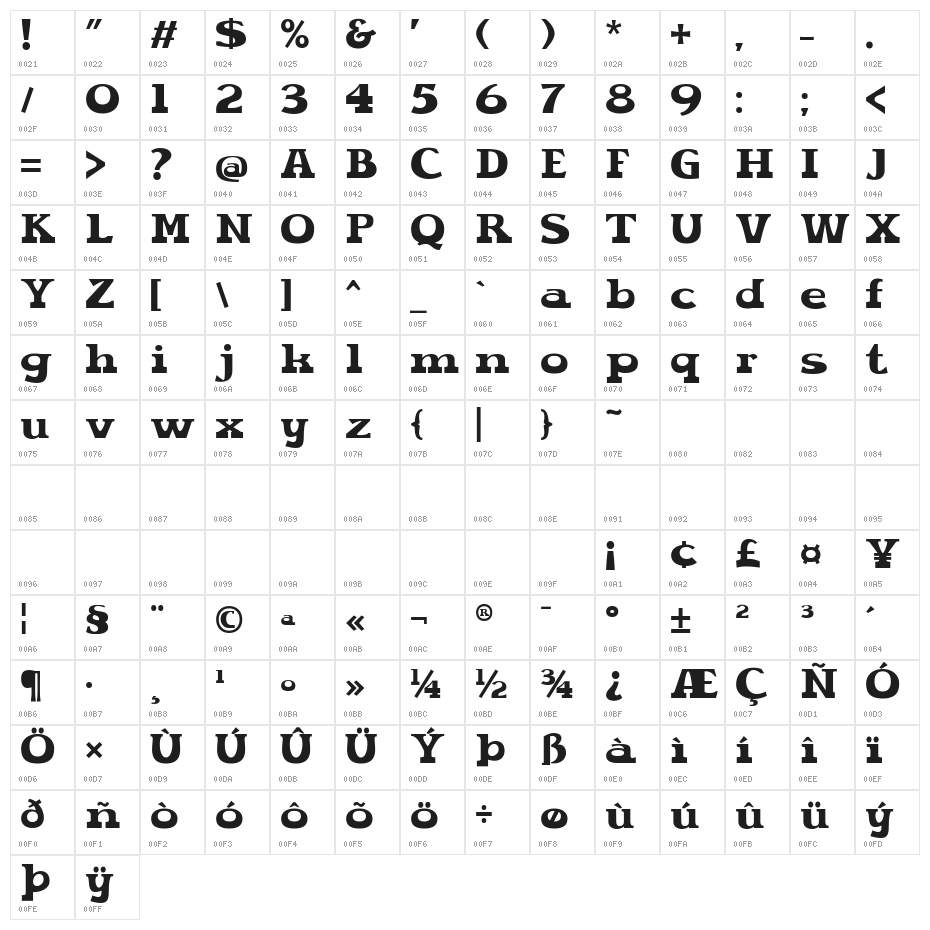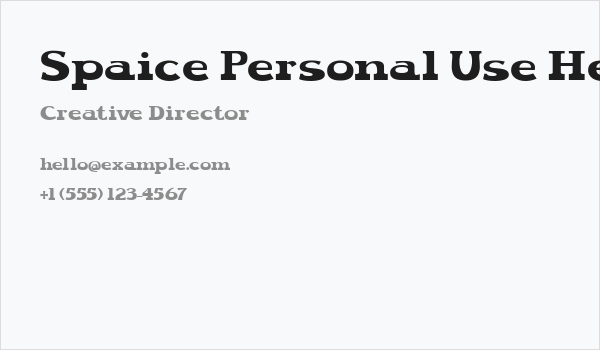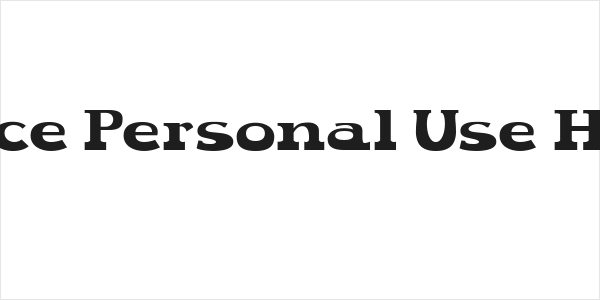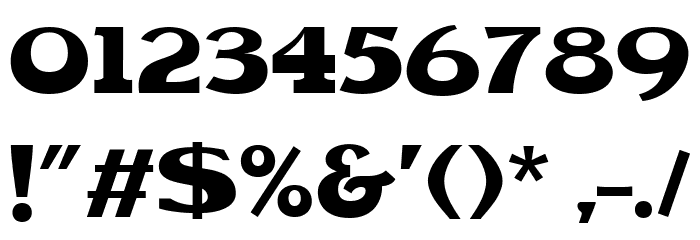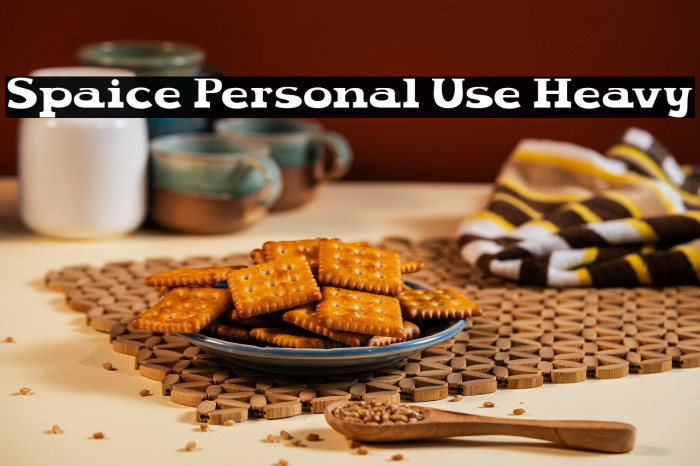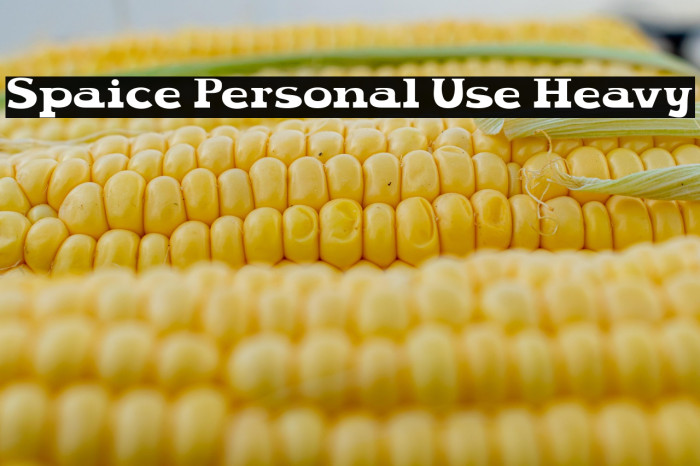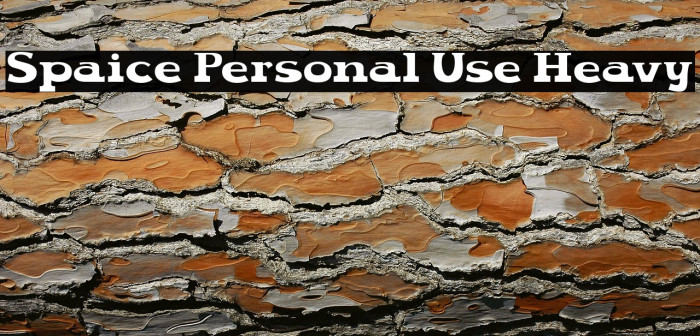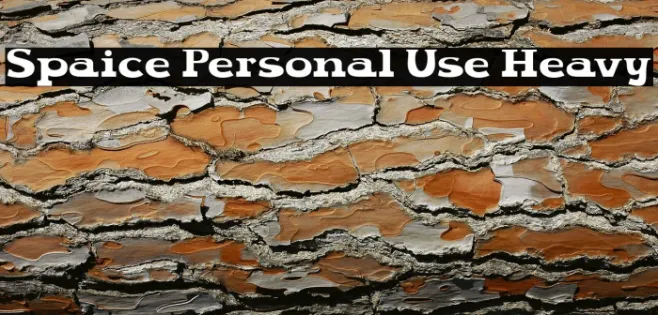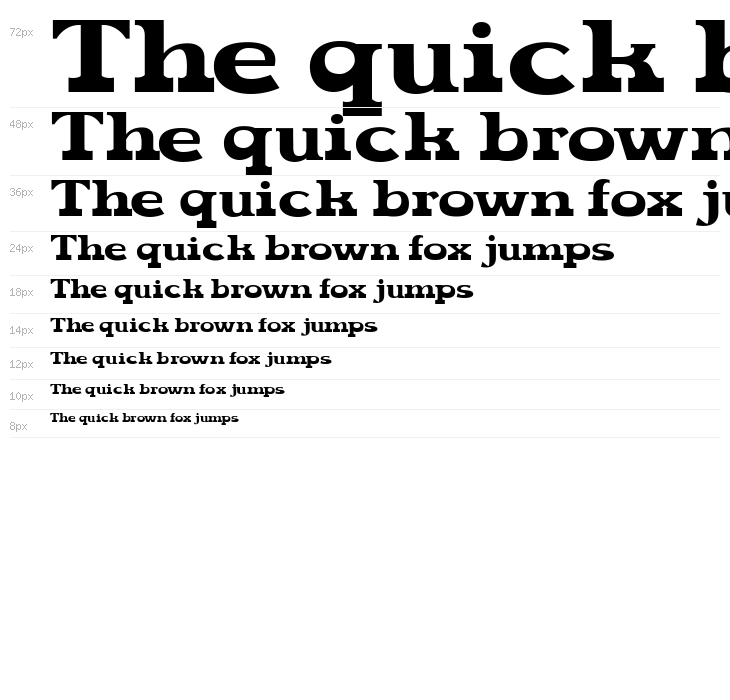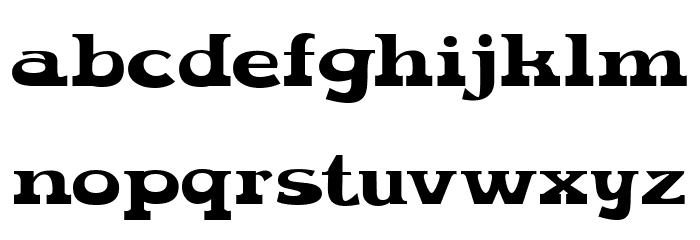
Spaice Personal Use Heavy Font
Spaice Personal Use Heavy Description
This font features a bold and heavy style with strong, thick strokes that convey a sense of power and impact. The uppercase letters are robust and commanding, while the lowercase letters maintain a consistent weight, offering a cohesive look. The numerals are equally bold, ensuring they stand out in any context. Special characters are designed with the same heavy weight, providing a uniform appearance across all glyphs. The font's overall aesthetic is modern yet timeless, making it suitable for a variety of design applications.
| Proposed Projects | Ideal for headlines, posters, branding, and any project requiring a strong visual impact. |